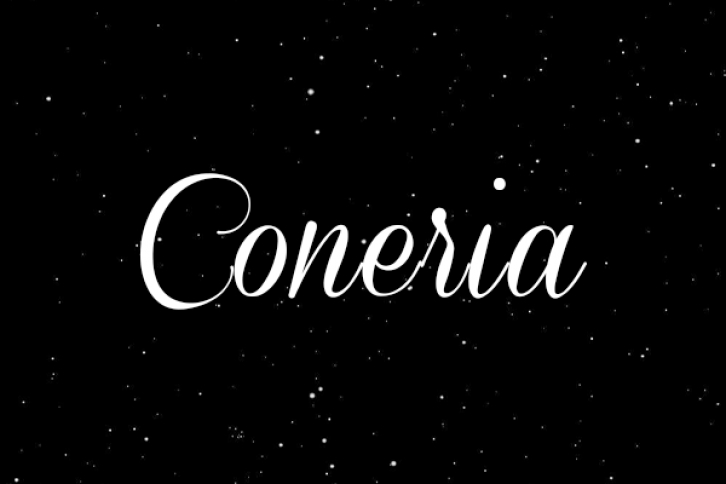
Coneria is a well-balanced and elegant handwritten font. Its distinct letters make this font a masterpiece. Fall in love with its incredibly versatile style and use it to create spectacular designs!